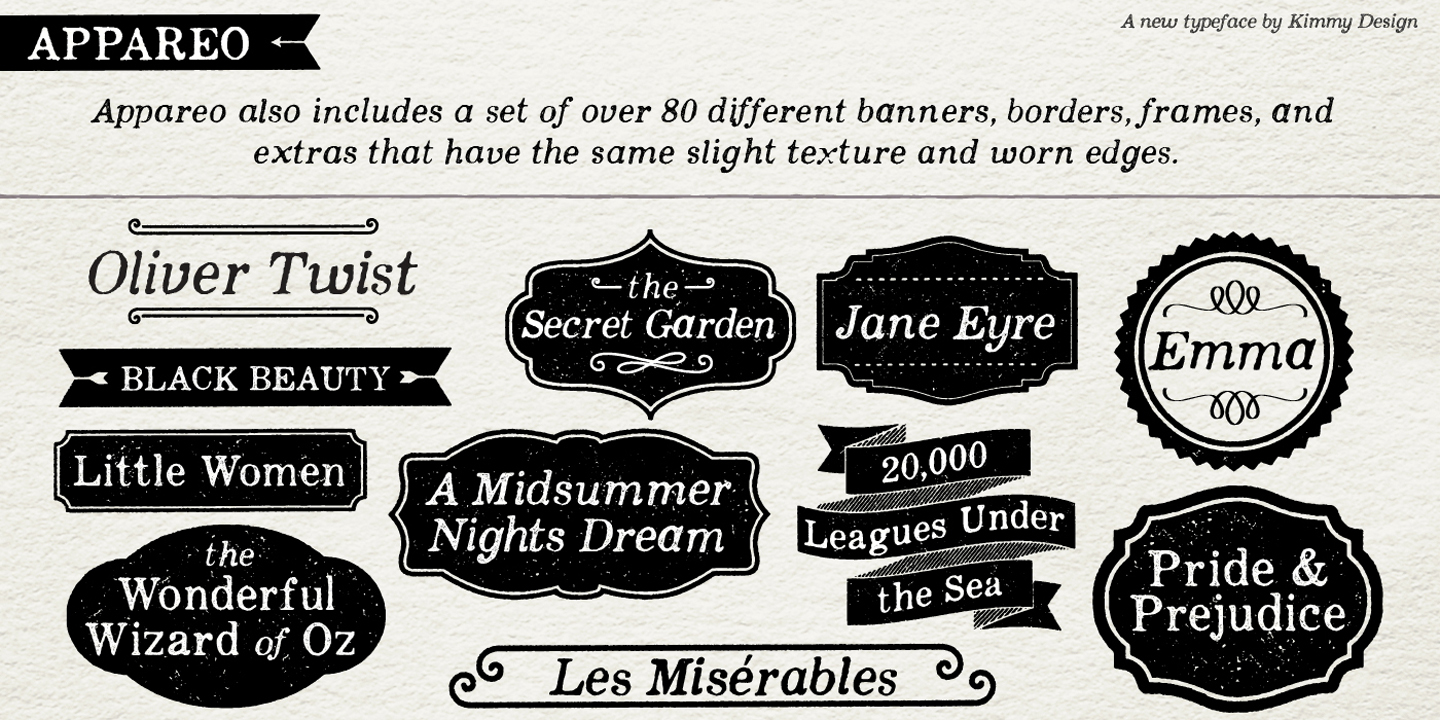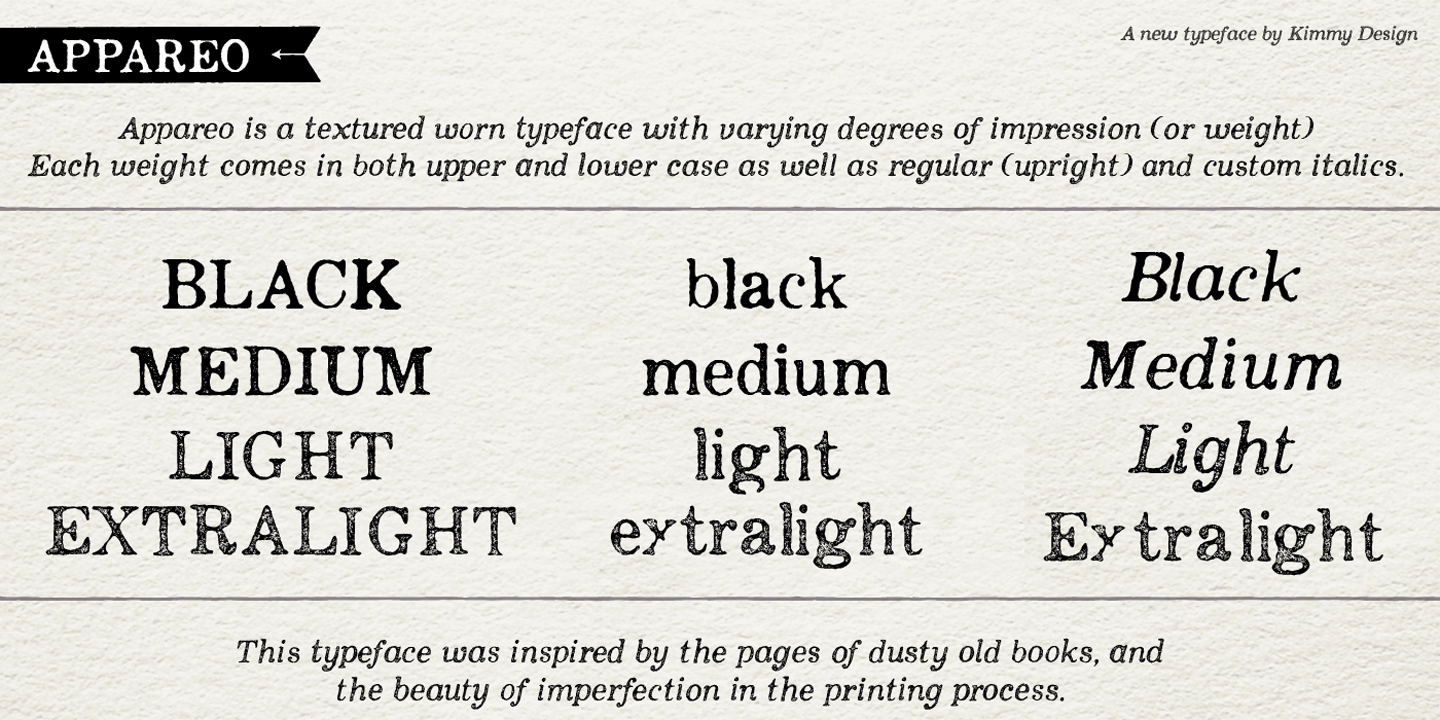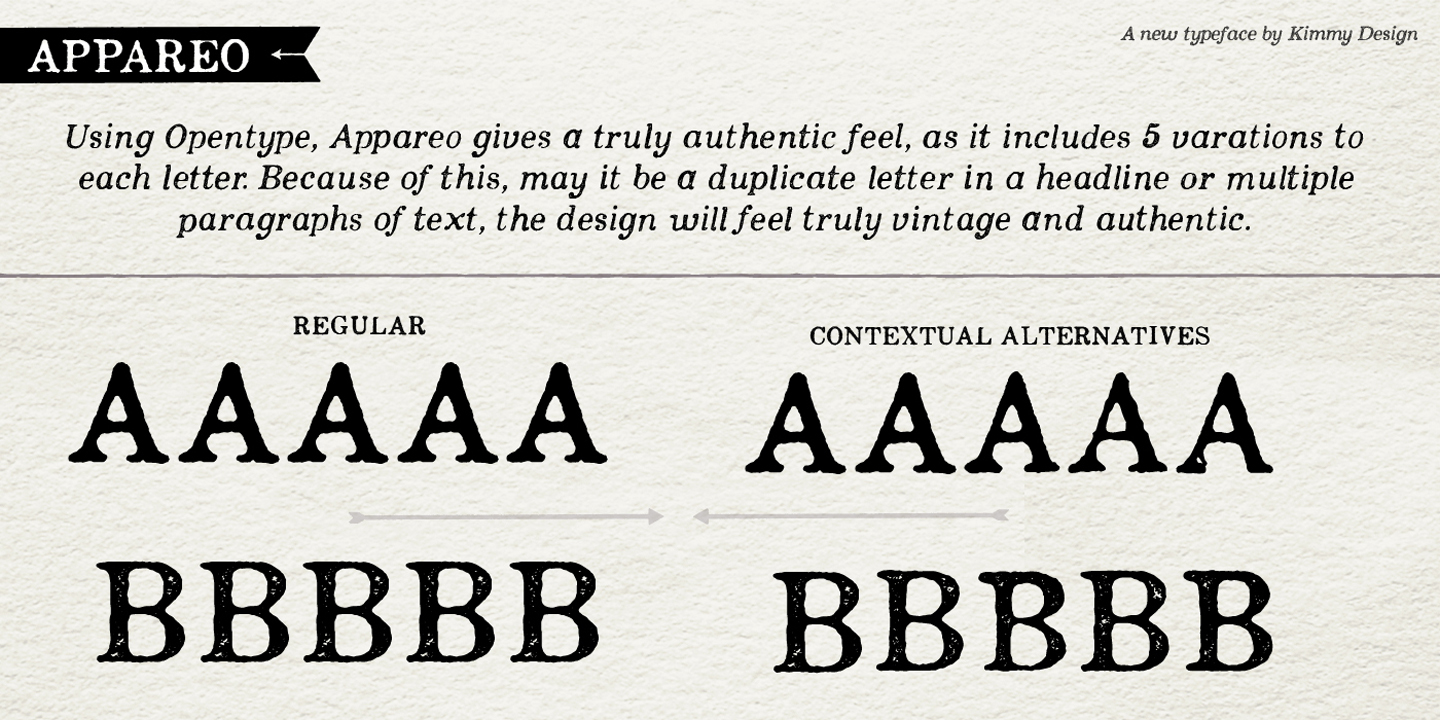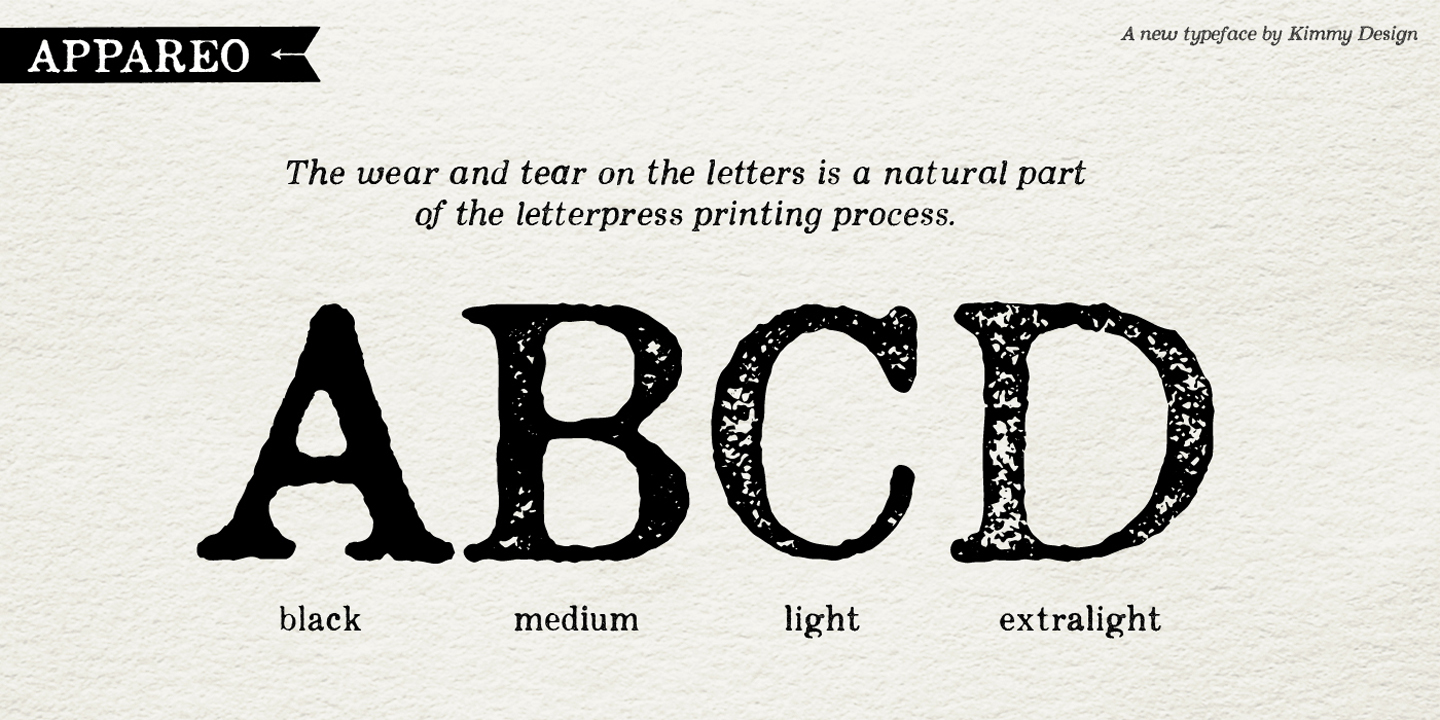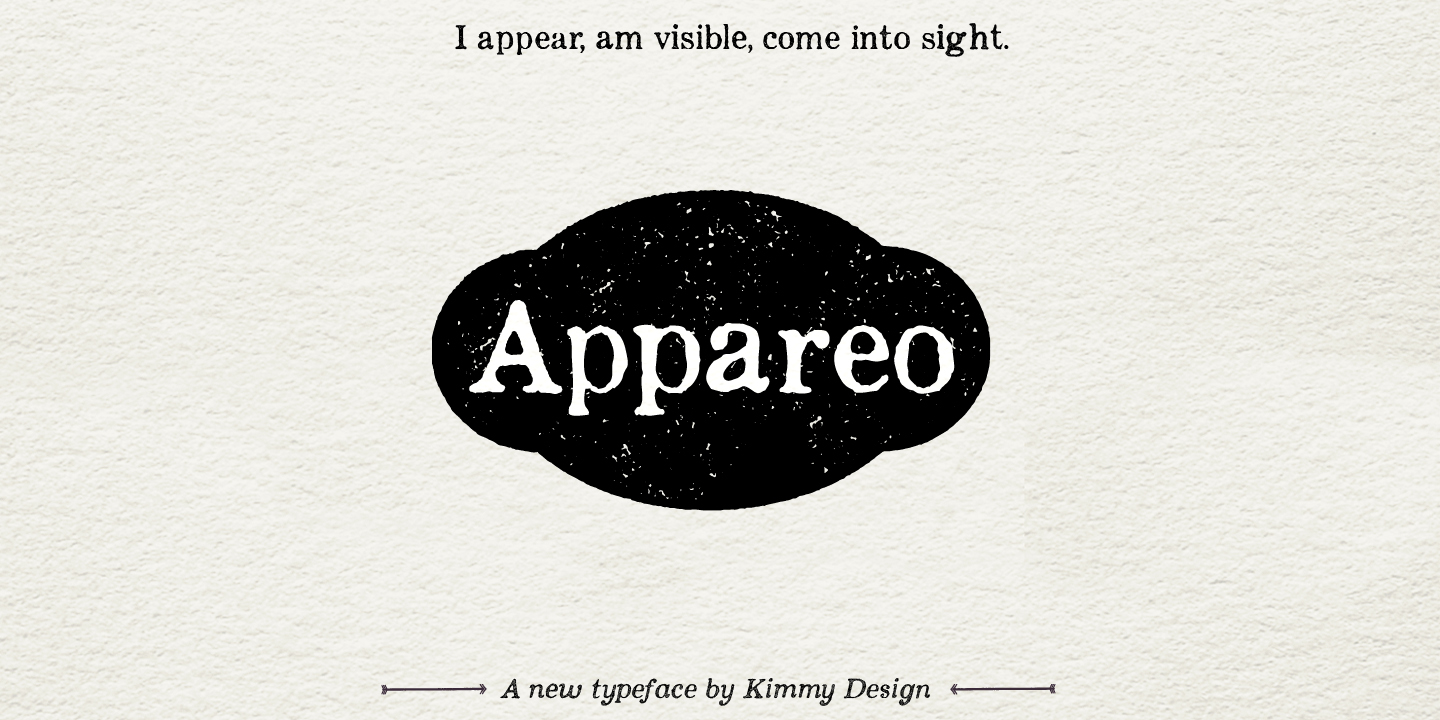
Appareo Family (9 fonts)
From Kimmy Design
To fully give the authentic feel of worn pages of dusty of books, Appareo has 5 character variations assigned through Contextual Alternatives using Opentype features. This allows no two same letters to ever be found near each other.
Appareo also has a set of graphic elements, including frame, banners, borders, arrows, etc in the same style and texture.